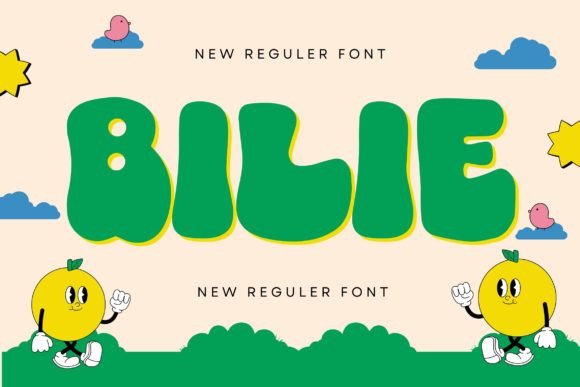
Introducing Bilie Font, the ultimate choice for your poster titles and beyond! Created by the talented maghrib, this captivating display font is designed to make a lasting impression. With its bold and impactful strokes, Bilie commands attention like no other font in its category.
What sets Bilie Font apart is its ability to convey strength, confidence, and a contemporary vibe. Its thick and striking letterforms are impossible to ignore, making it the perfect choice for headlines that demand attention. Whether you're creating a poster for an event, designing a captivating branding campaign, or simply looking to add a touch of modernity to your projects, Bilie Font is the ultimate weapon you need.
Let your creativity soar as you explore the endless possibilities with Bilie Font. Its unique style and captivating presence will bring your designs to life, leaving a lasting impression on your audience. Imagine the impact your poster titles can have when they are bold, powerful, and impossible to ignore!
But Bilie Font is not just about making a statement. It also offers a seamless blend of style and readability, ensuring that your message is delivered with clarity. This font is crafted with utmost precision, guaranteeing that every stroke is perfectly balanced.